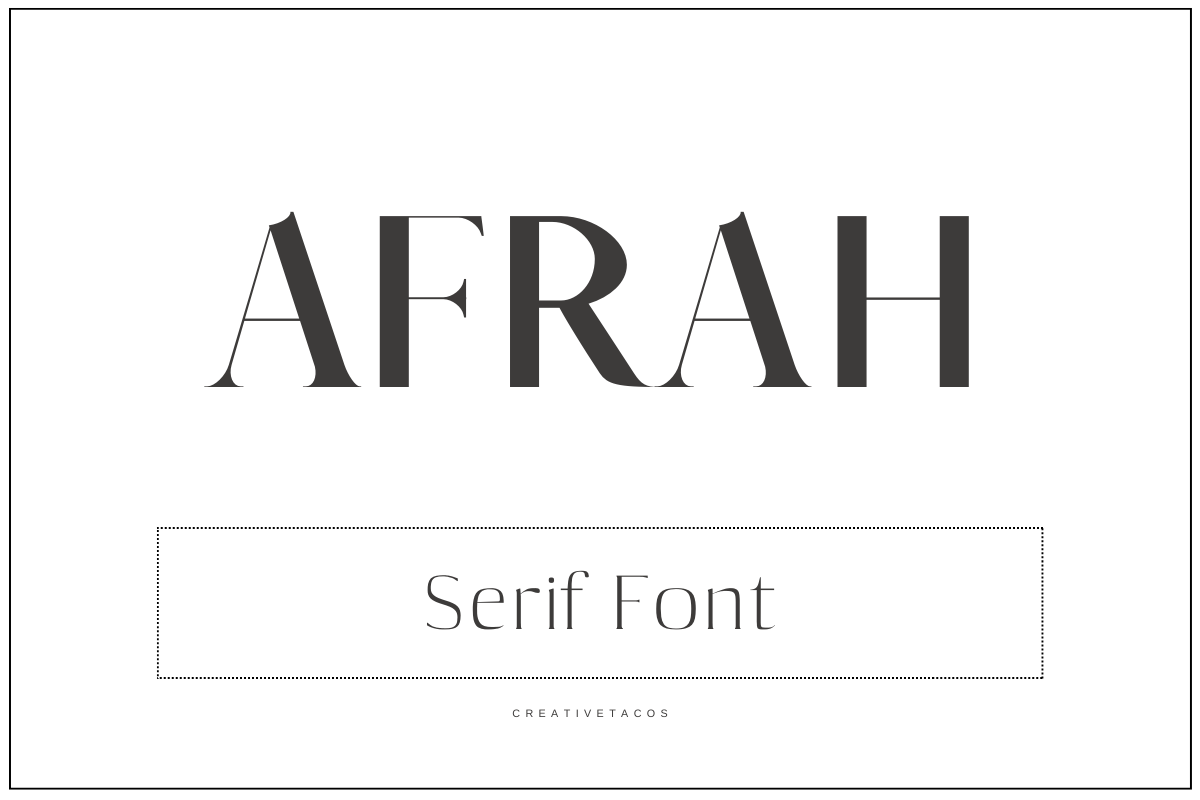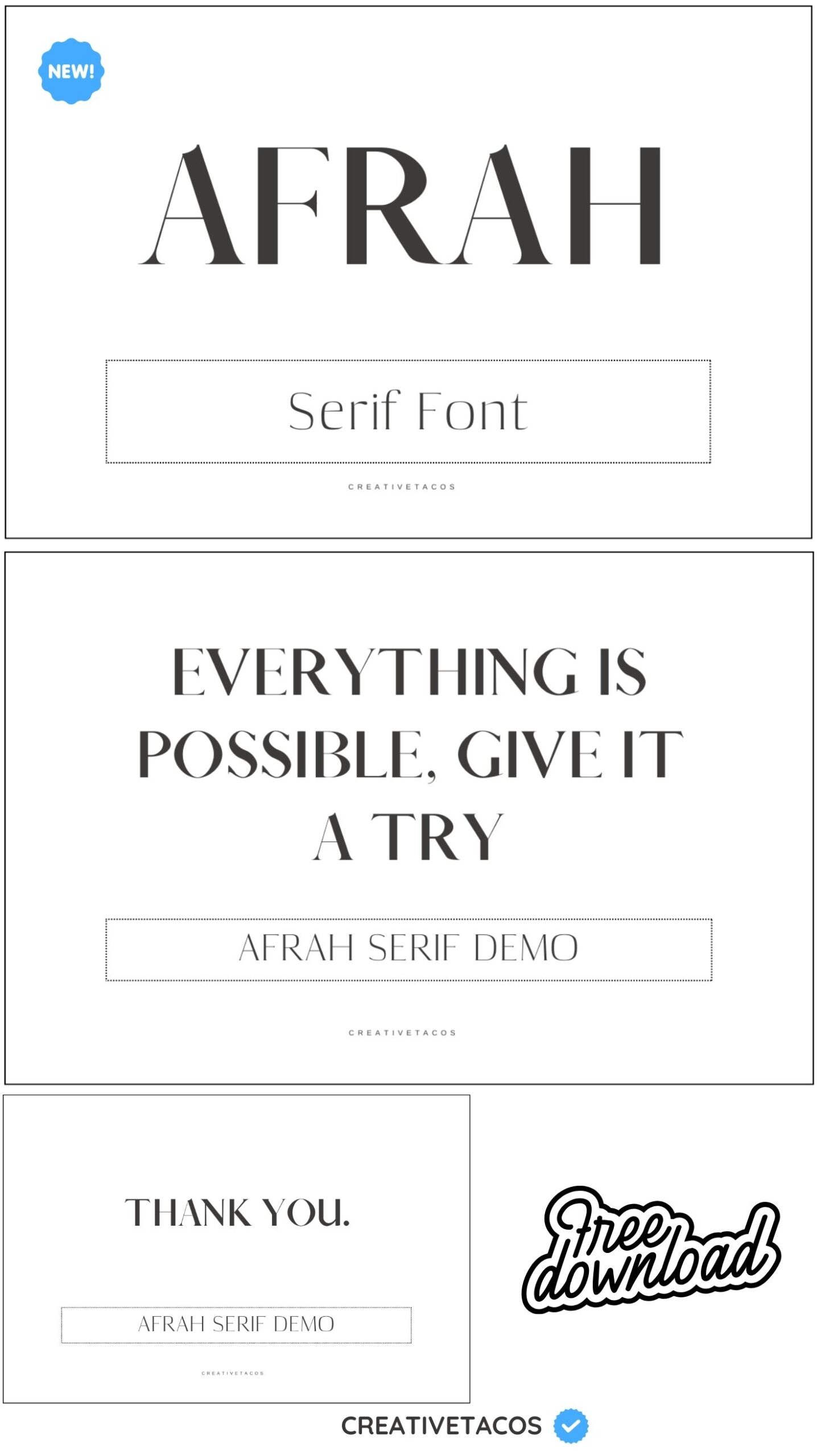
Afrah Serif Font Family Demo
Looking for a stylish and modern Serif font? Check out Afrah Serif Font – perfect for everything from website headers to printed materials. With its unique and stylish features, Afrah is sure to make your designs stand out from the crowd. Download now! This is free for personal use, for commercial use buy license.
"Promotion for Afrah serif font. Includes phrases 'Everything is possible, give it a try' and 'Thank you.' Offers free download by Creativetacos."
With its classic serif look, the Afrah typeface will make your text stand out. Download it now and give your documents a touch of class!